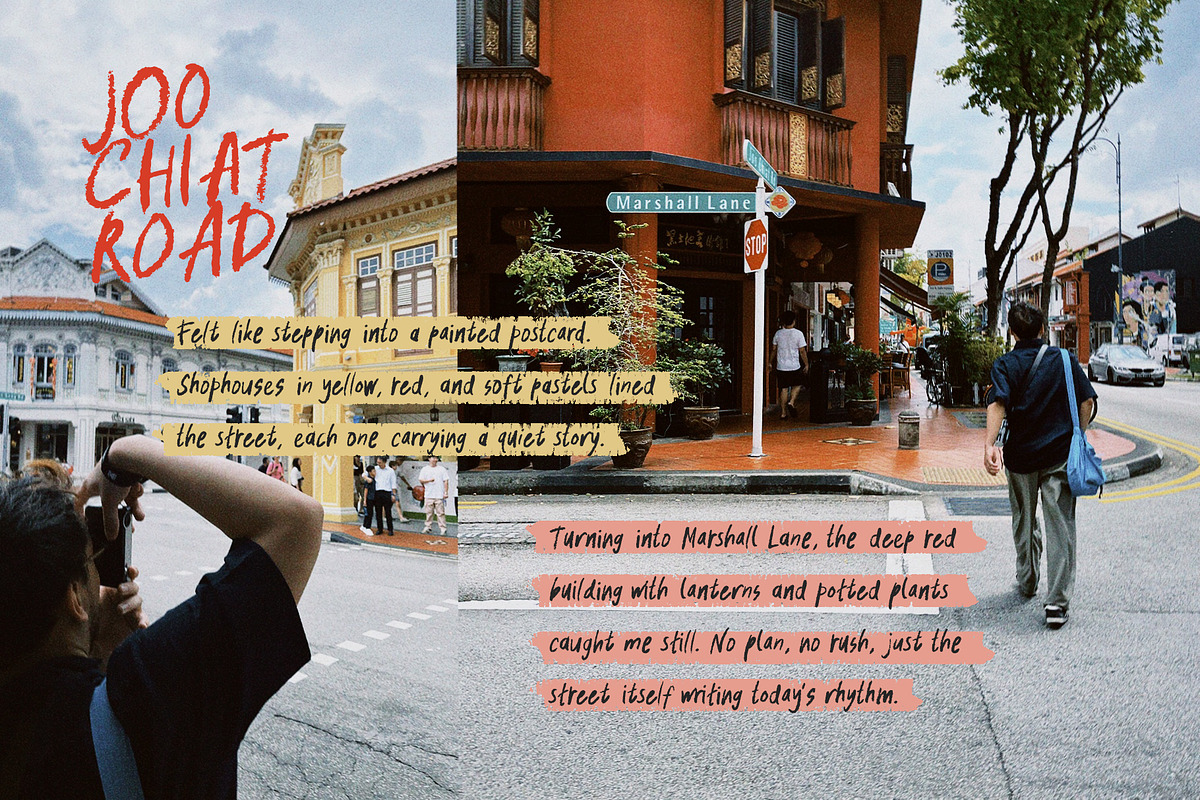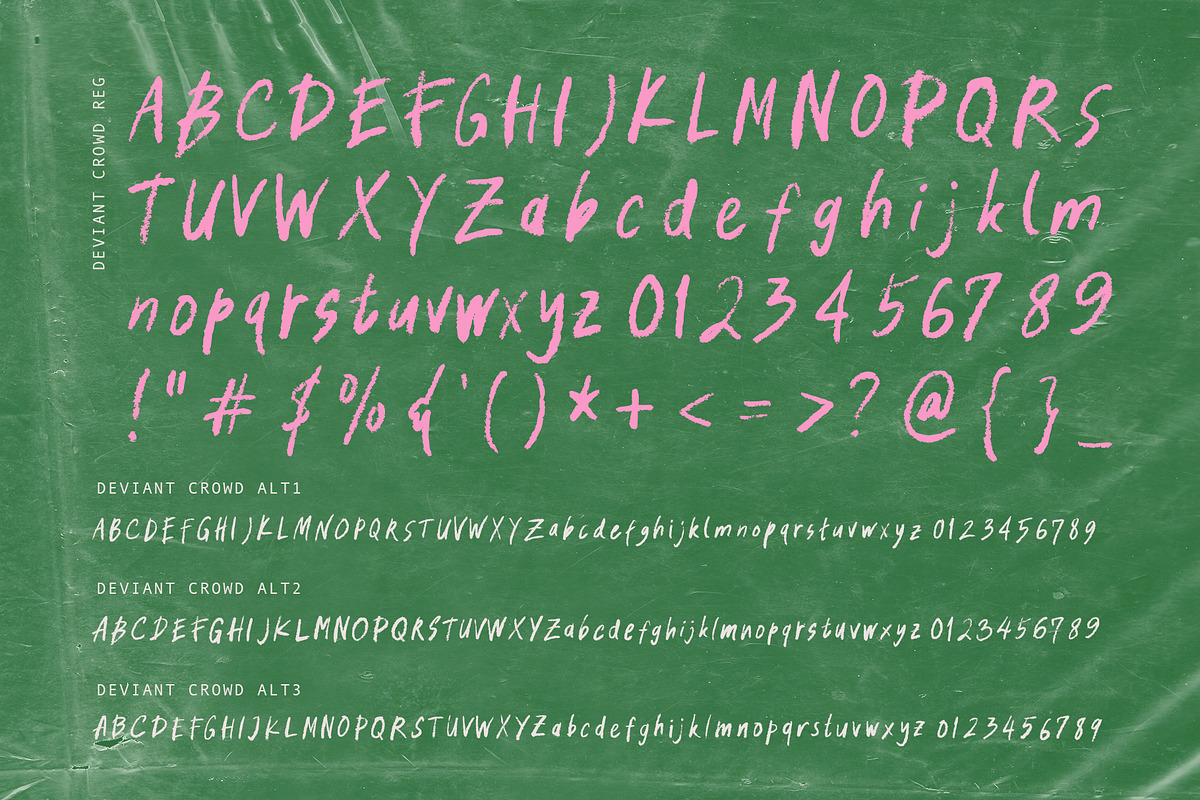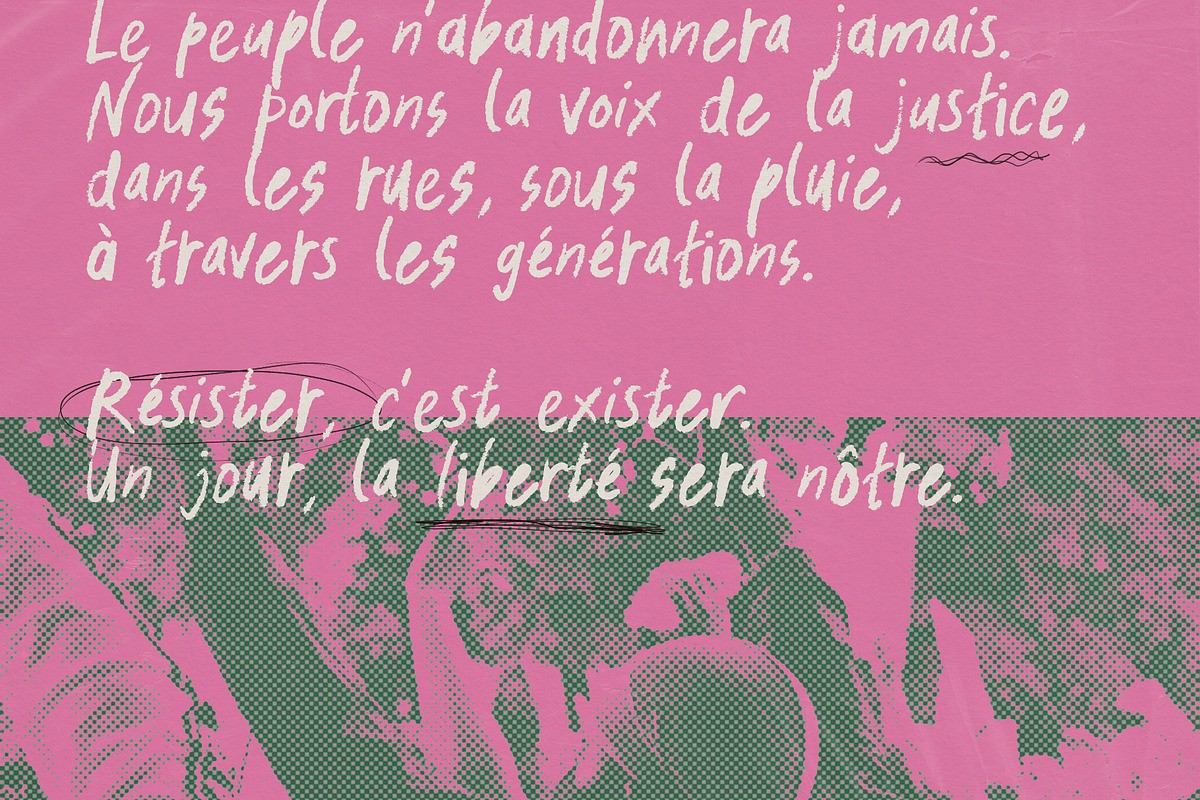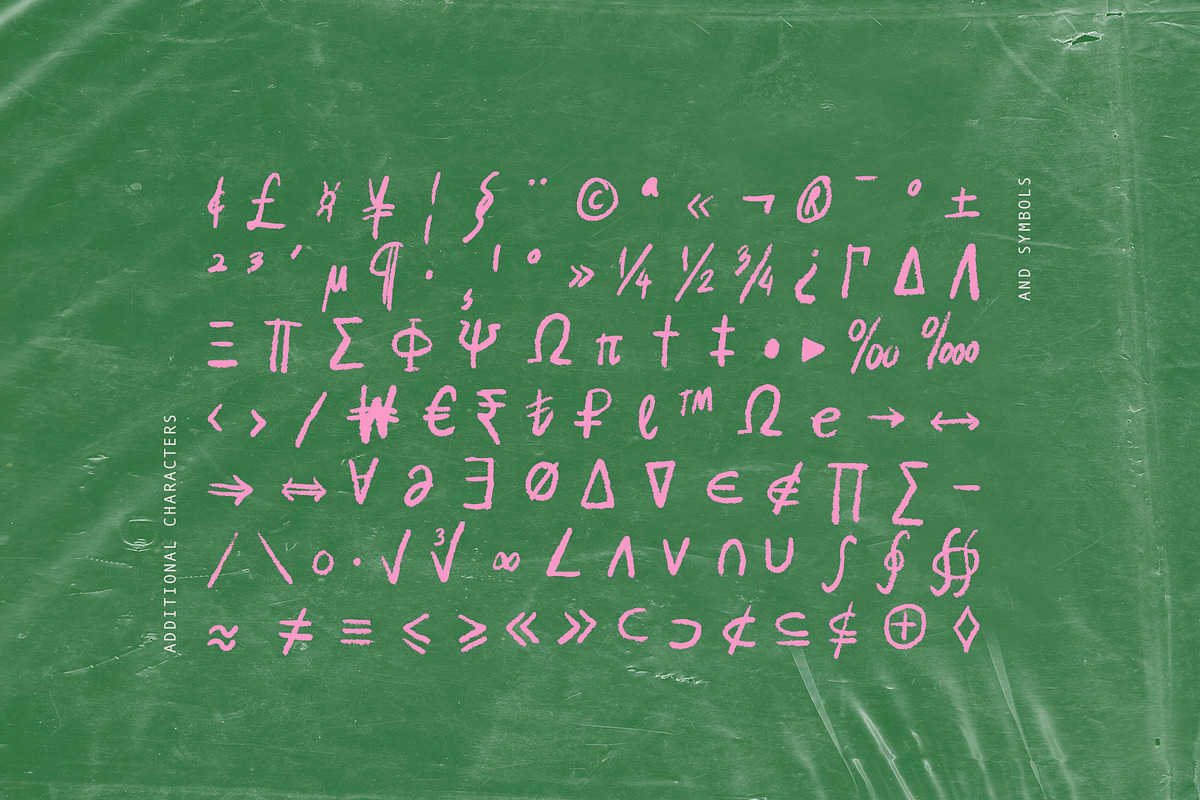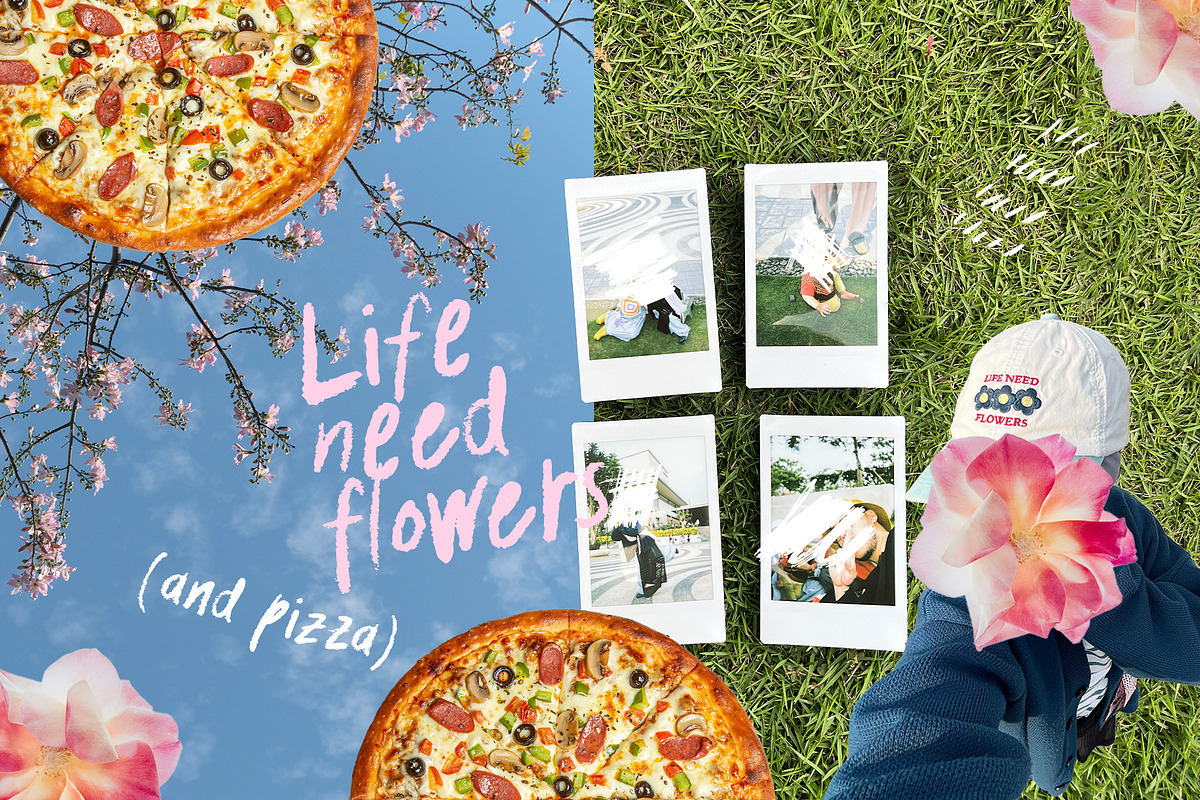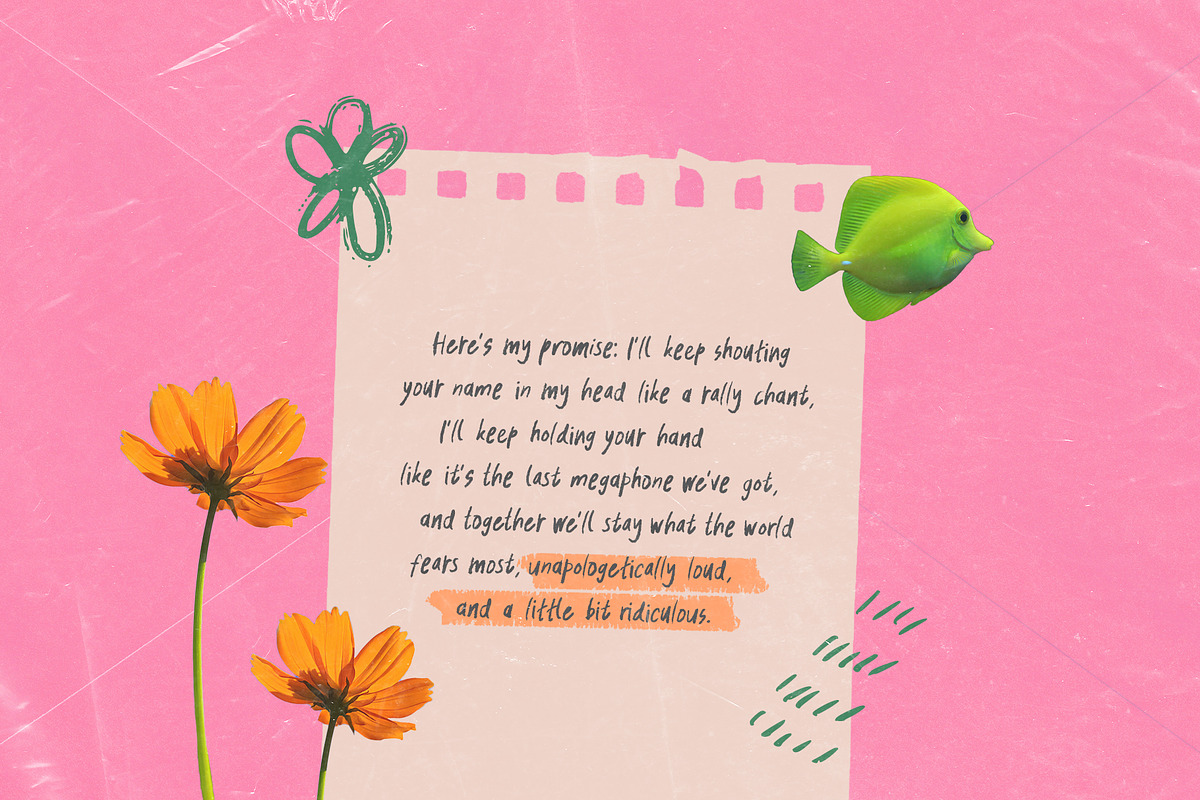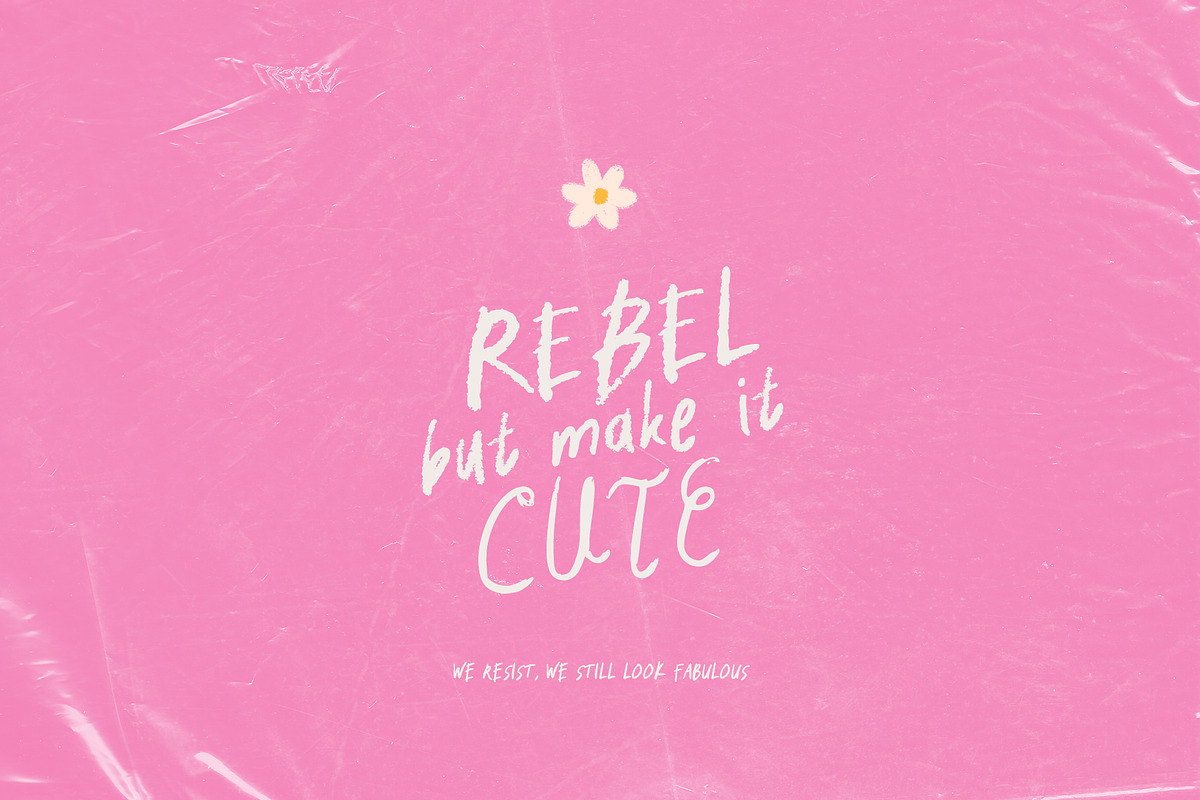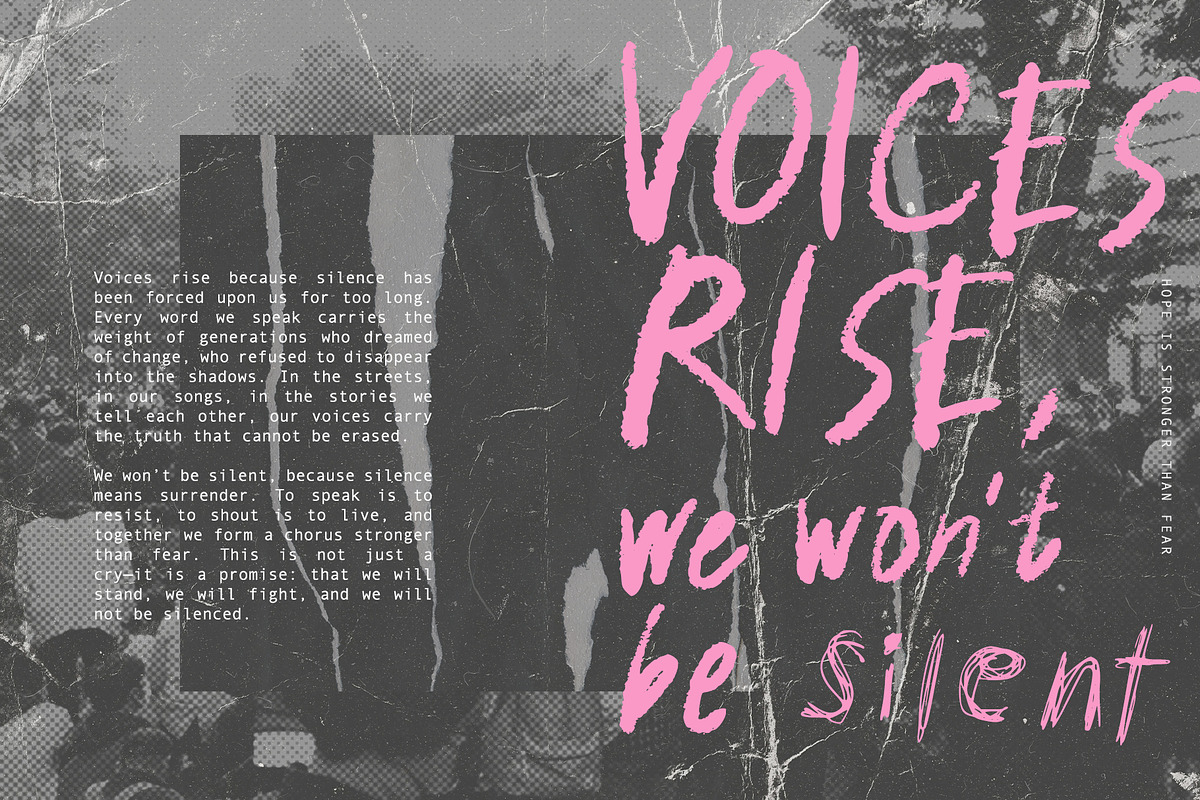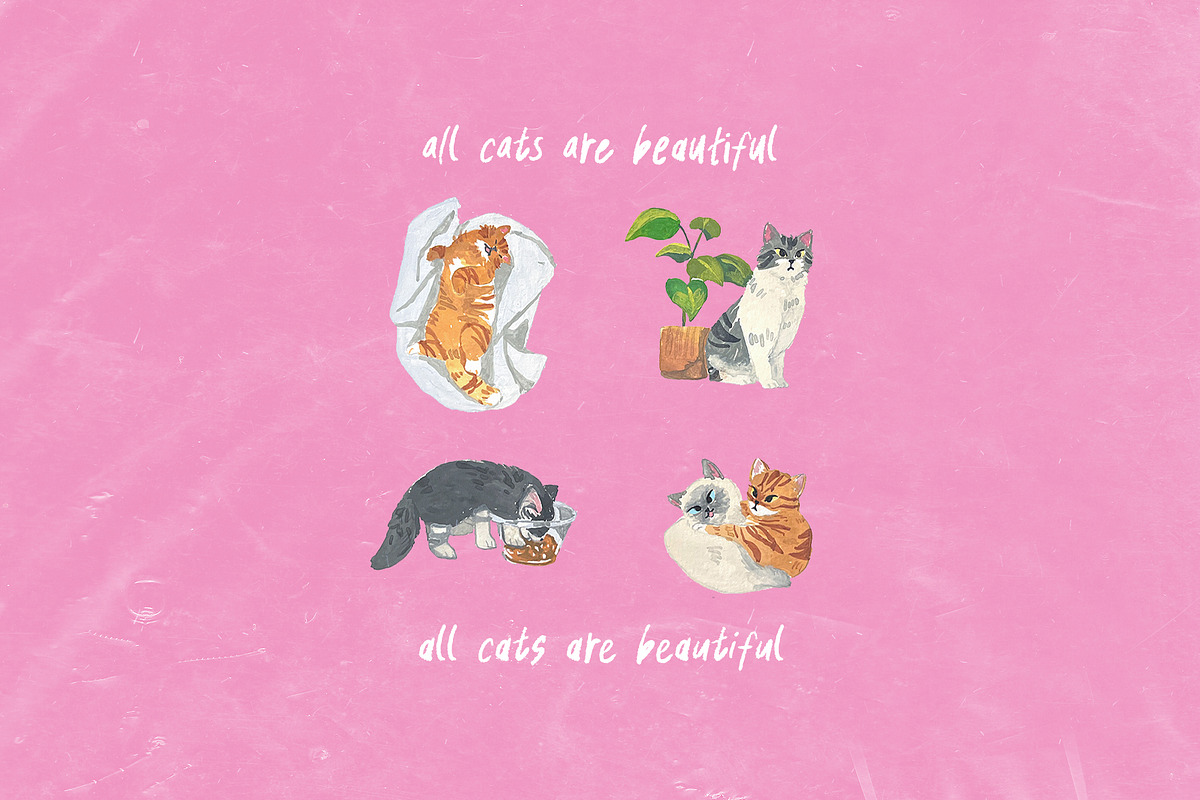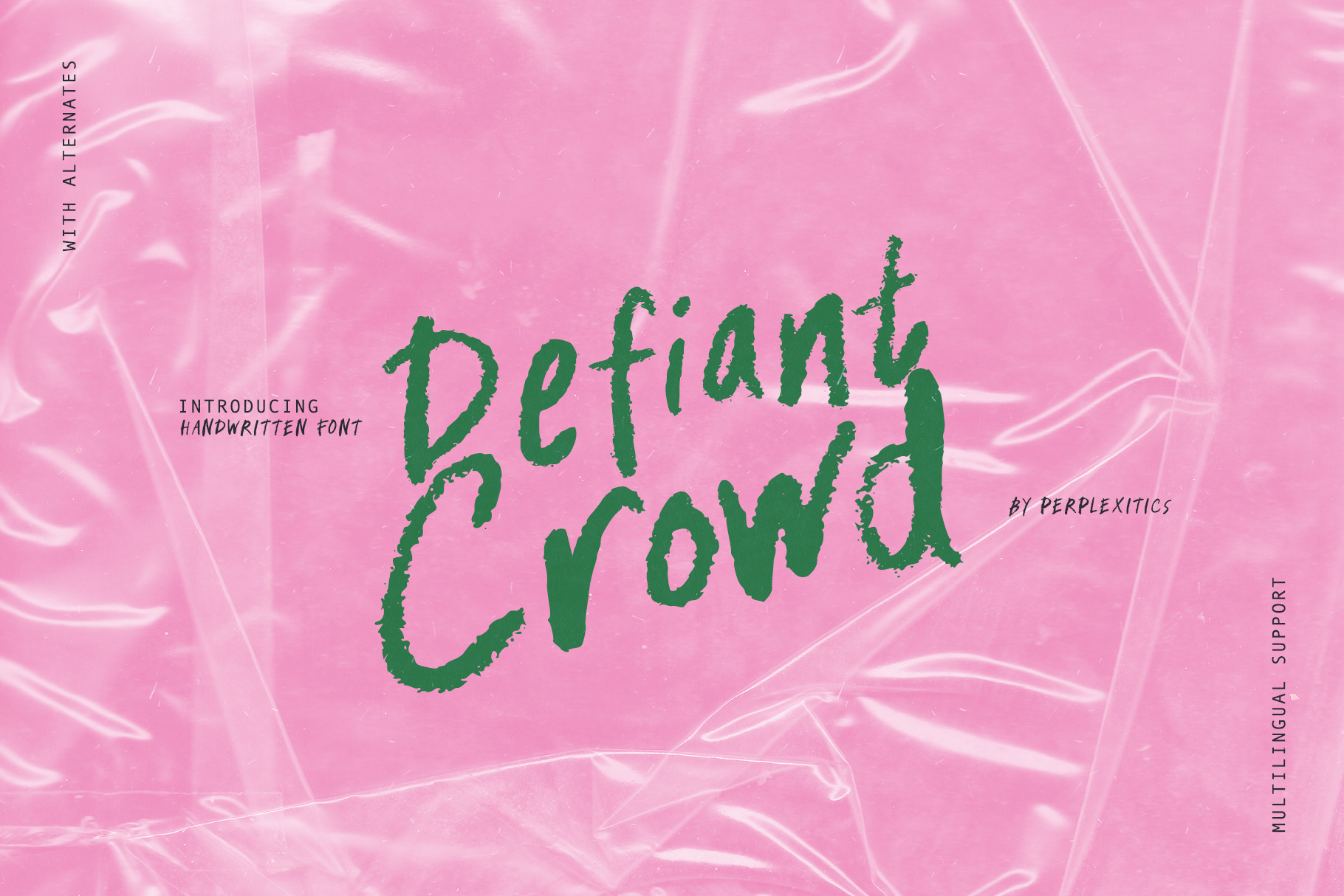
Defiant Crowd Handwritten Font
Defiant Crowd Font is a bold handwritten font with rough textured strokes and natural brush details. Perfect for posters, logos, packaging, and eye-catching titles. Defiant Crowd Font is packed with everything you need, including uppercase and lowercase letters, numbers, and punctuation. Multilingual support.